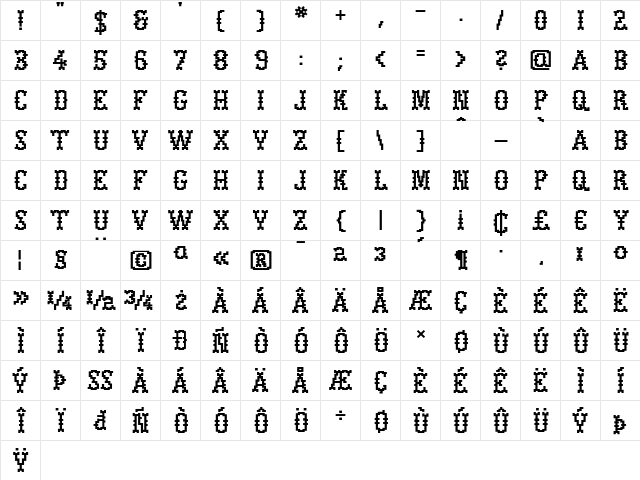
GretelStrong Bold
| Foundry | FOUNTAIN/Peter Bruhn, Sweden |
| Designer | Sylvia & Daniel Janssen |
Design Context for GretelStrong Typeface
GretelStrong is a composed and adaptable typeface that performs quietly and consistently across a wide range of design contexts. Its bold stroke weight gives it real presence on the page.